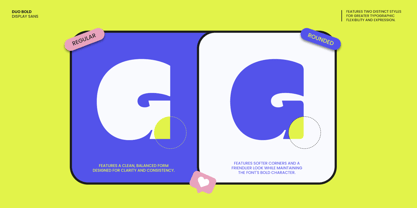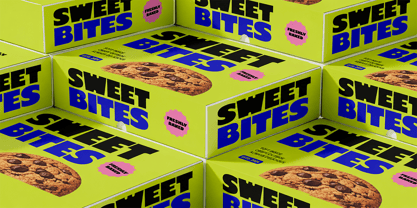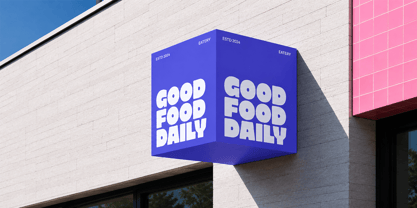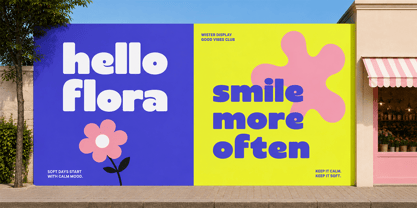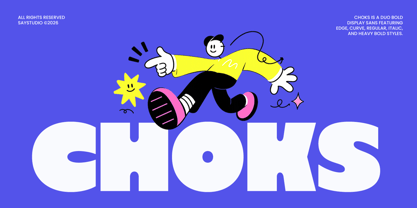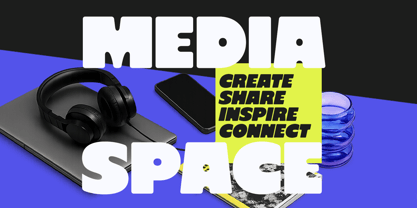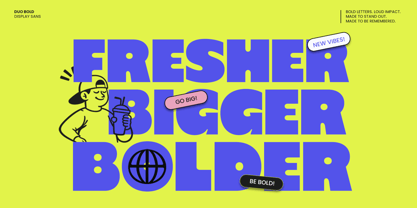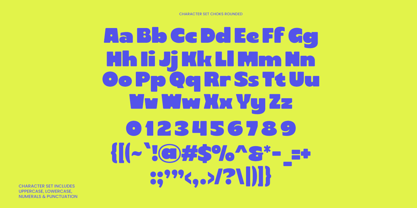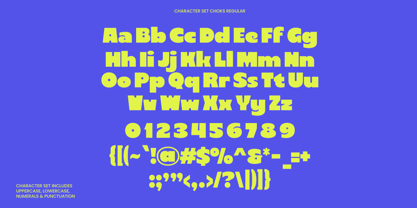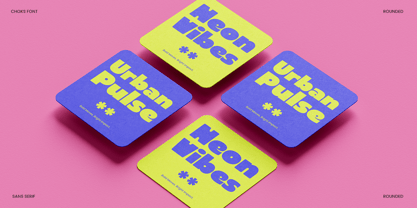
Choks
Choks is a bold and playful display sans serif font designed to make every word impossible to ignore. Featuring a unique dual-style system with both Regular (Sharp Edge) and Rounded versions, Choks gives designers the flexibility to create energetic, eye-catching typography while maintaining a consistent visual identity. Its chunky letterforms, soft curves, and strong geometric structure make it perfect for projects that demand attention.
Inspired by contemporary branding, street graphics, packaging design, and modern editorial trends, Choks delivers a friendly yet powerful personality. Whether you're creating bold headlines, vibrant posters, product packaging, social media content, logos, or creative merchandise, this font brings a fresh and expressive look that instantly stands out across digital and print applications.
From food brands and lifestyle products to creative agencies, startups, children's products, event promotions, and modern advertising campaigns, Choks is built to maximize visual impact. The combination of heavy weight, playful proportions, and versatile style options makes it an excellent choice for designers seeking a font that feels both modern and memorable.
• Edge and Round Style
• Regular and Italic Style
• Uppercase and Lowercase
• Number, Symbol, and Punctuation
• Multi Language Support